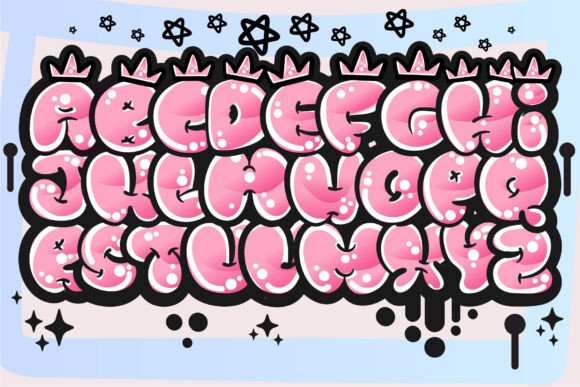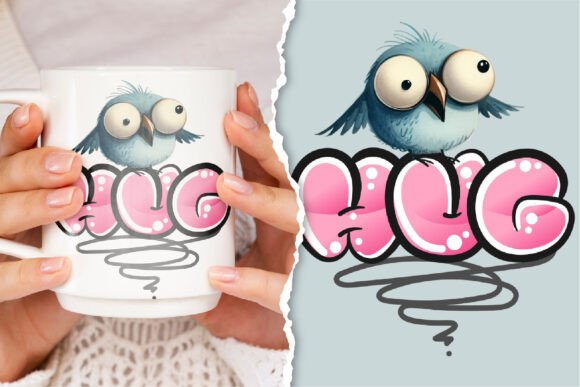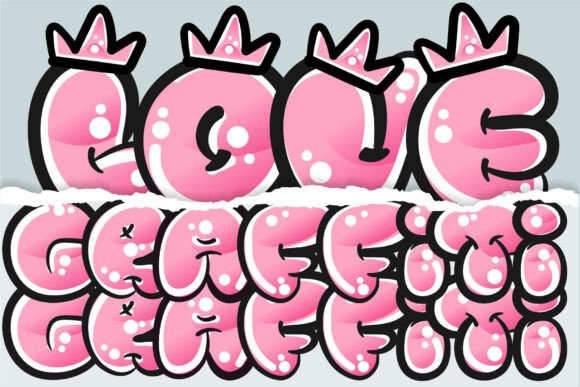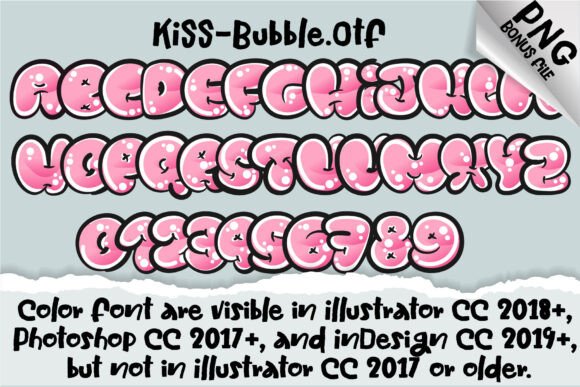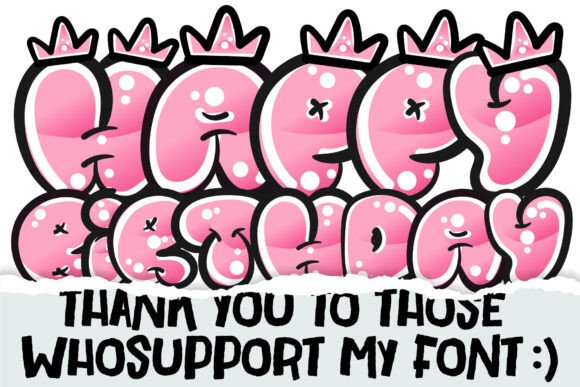
Kiss Font
Kiss is an adorable, vibrant graffiti bubble font with chunky, colorful letters ideal for creative kids’ crafts, playful DIY projects, educational materials, invitations, cheerful decorations, school posters, scrapbooking, fun stickers, and more.